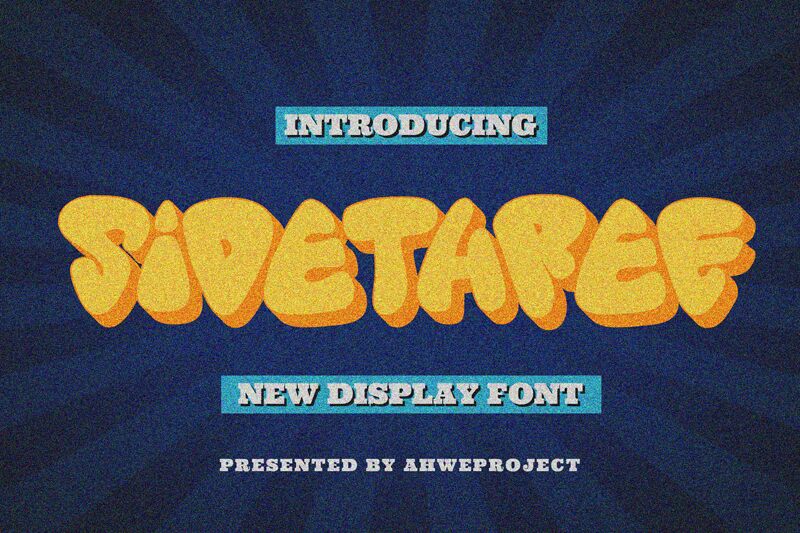
Sidethree by Ahwe Project is a bold, groovy display font that exudes a captivating sense of retro-inspired flair. Its unique, undulating letterforms and dynamic, playful aesthetic evoke a vibrant, retro-futuristic vibe, inviting the viewer to explore its playful, eye-catching charm.
This expressive font shines in applications that prioritize making a bold, attention-grabbing statement. Its distinctive character lends itself well to a variety of design contexts, from eye-catching headlines and logos to impactful poster designs and product packaging. Sidethree's versatility allows it to elevate a wide range of creative projects, adding a touch of retro-inspired charisma and energy to any design.